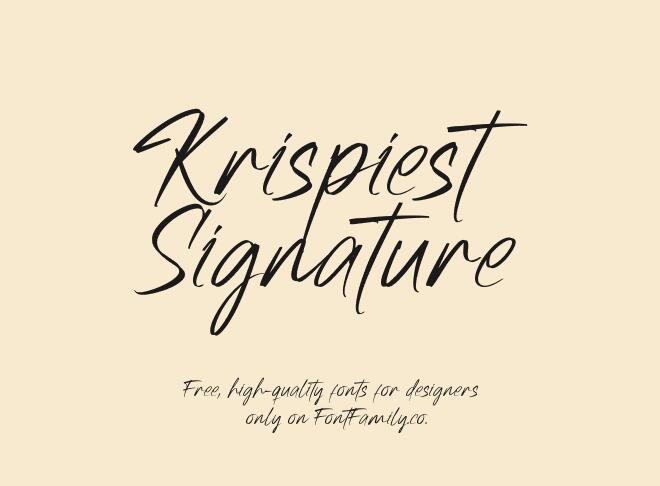
Krispiest Signature Font
Introducing the Krispiest Signature Font, a unique handwritten script font by Krispy Designs. With its delicate, flowing characters and elegant style, it captures the essence of classic calligraphy while offering a modern twist. It's perfect for branding, wedding invitations, and personal logos, adding a touch of sophistication to any design. Krispiest Signature Font stands out from other fonts with its crisp lines and signature style, making it a great choice for those seeking to make a lasting impression. Its versatility allows it to blend seamlessly with both formal and casual designs. Experience the unique charm and elegance of Krispiest Signature Font and elevate your design game.